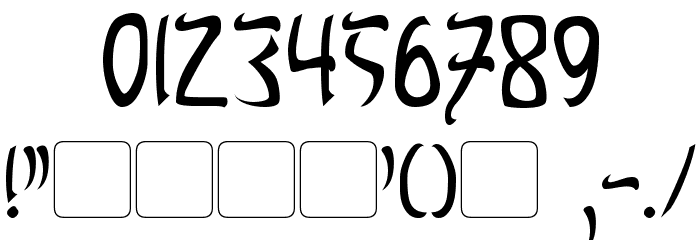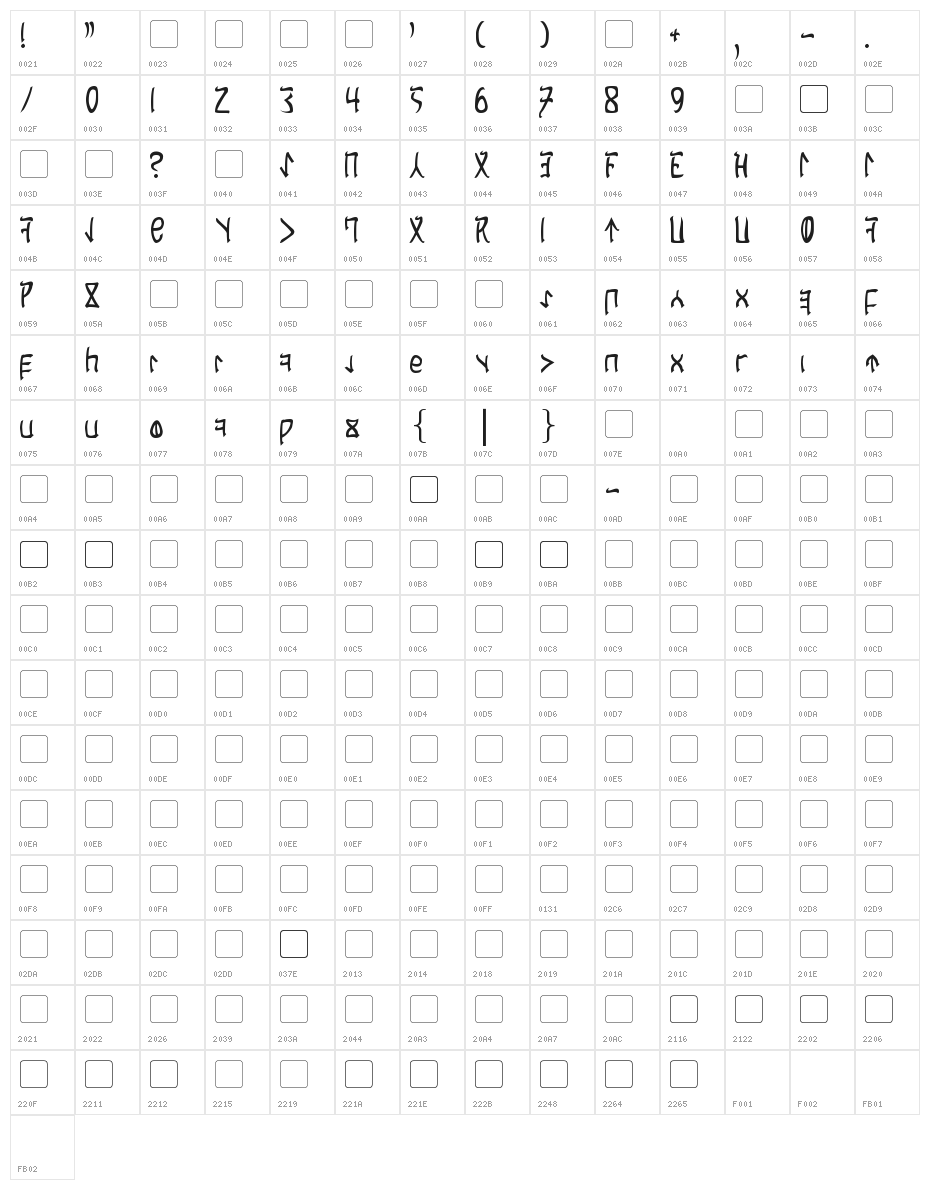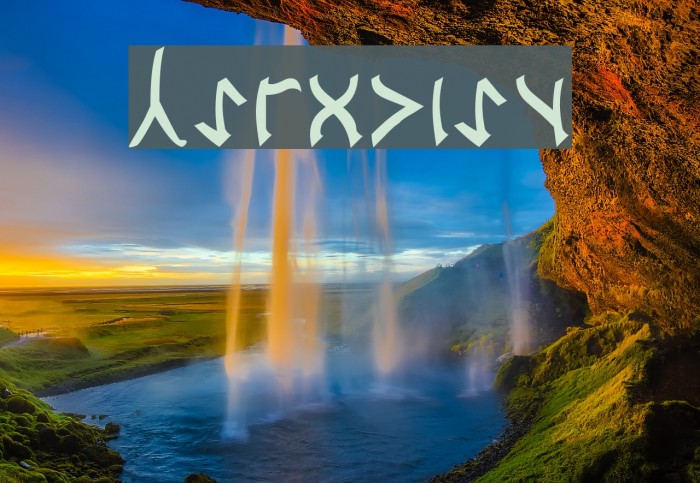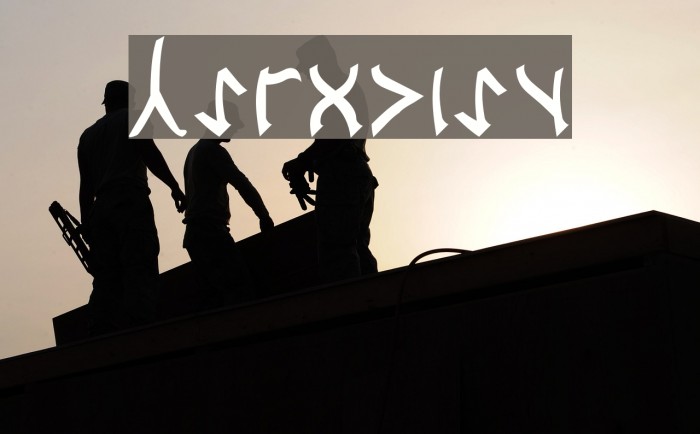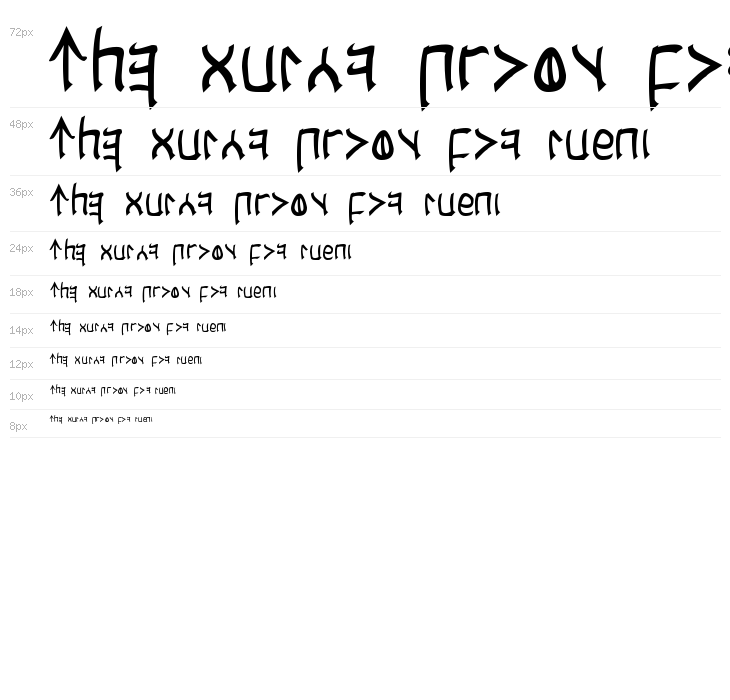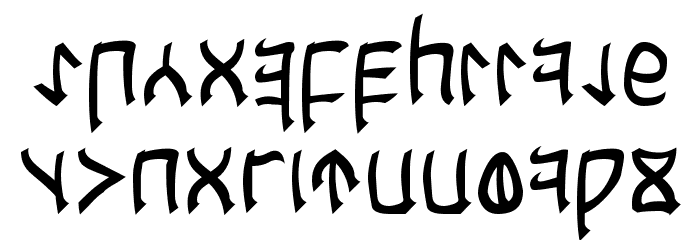
Cardosan Font
Cardosan Description
This font features a unique and bold design with a distinct, angular style reminiscent of ancient scripts. The characters are crafted with sharp edges and a slightly irregular form, giving it a hand-carved appearance. The uppercase and lowercase letters maintain a consistent style, with a strong emphasis on vertical strokes. Numbers and special characters follow the same design principles, ensuring uniformity across all glyphs. The font's overall aesthetic is both historical and artistic, making it suitable for projects that require a touch of antiquity or cultural depth.
| Use Case | Logos, Posters, Titles |
| Proposed Projects | Ideal for historical or cultural projects, fantasy-themed designs, or artistic displays. |